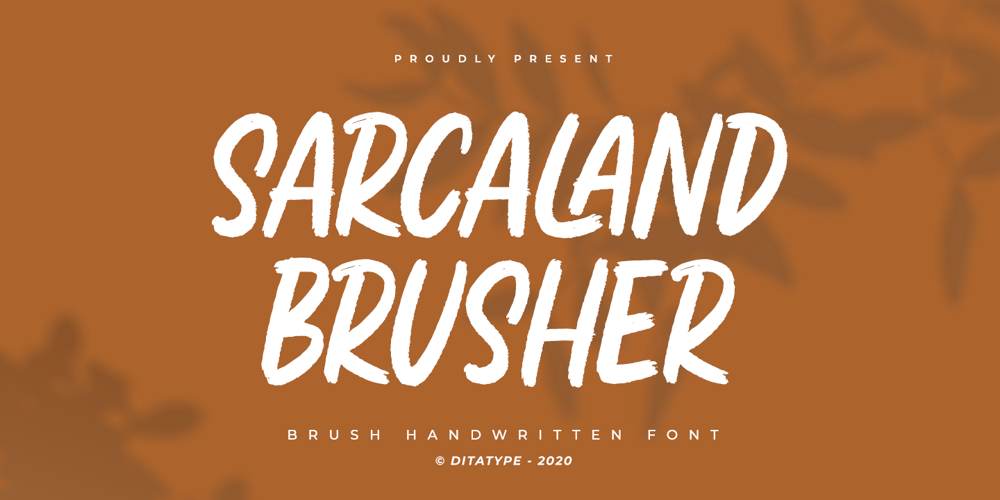
Sarcaland Brusher
Sarcaland Brusher font
Sarcaland Brusher Font Family was designed by Donis Miftahudin and published by Ditatype. Sarcaland Brusher contains 1 styles and family package options. Sarcaland Brusher is a classy script font. Combined with brush textured handwritten will make your design project more powerful. Made for any professional project branding. It is the best for logos, branding and of course quotes. Every letter has a unique and beautiful touch.Features: Multilingual Support PUA Encoded Numerals and Punctuation Thank you for downloading premium fonts from Dita Type